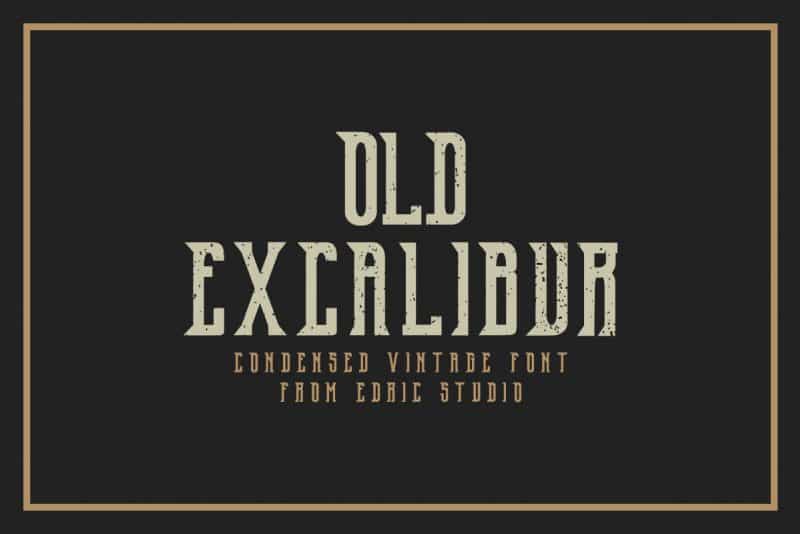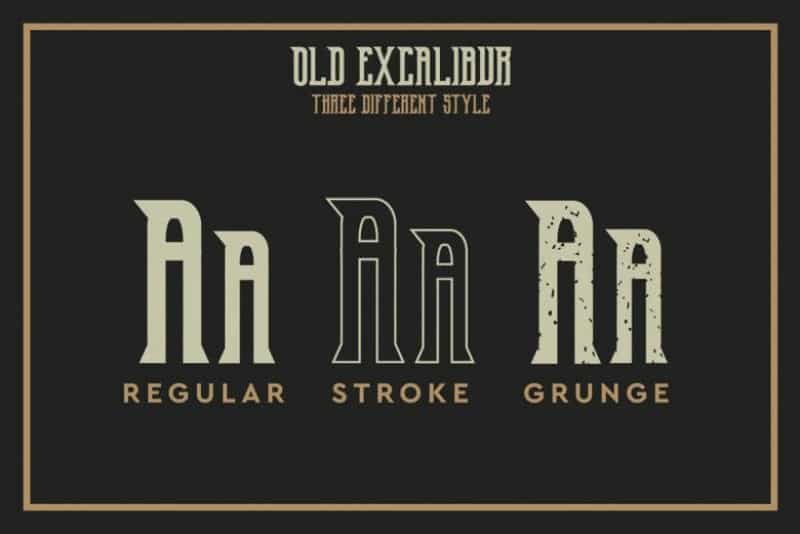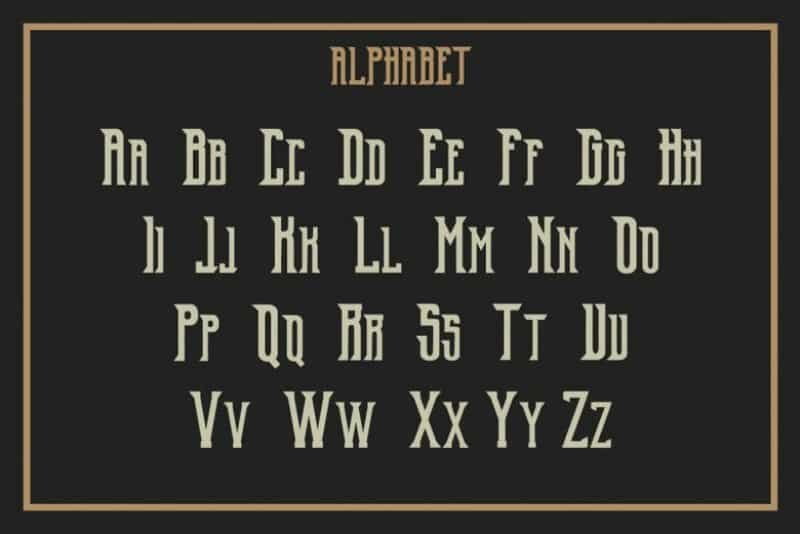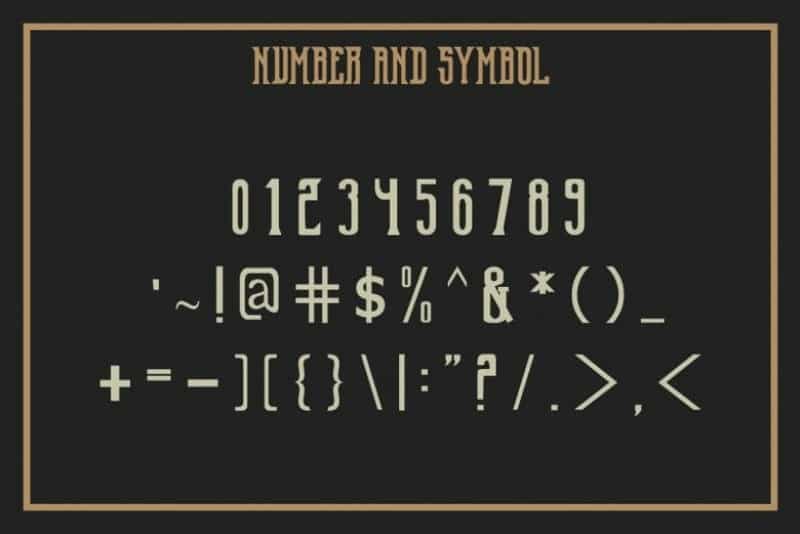
Hi Everyone! Introducing our newest font : Old Excalibur Typeface!This is a new vintage sans typeface. It is a new, elegant, individual and trendy typeface. It has 4 styles: regular, grunge, stroke, vintage This font is perfect for branding, logo design, stationery and business card printing.